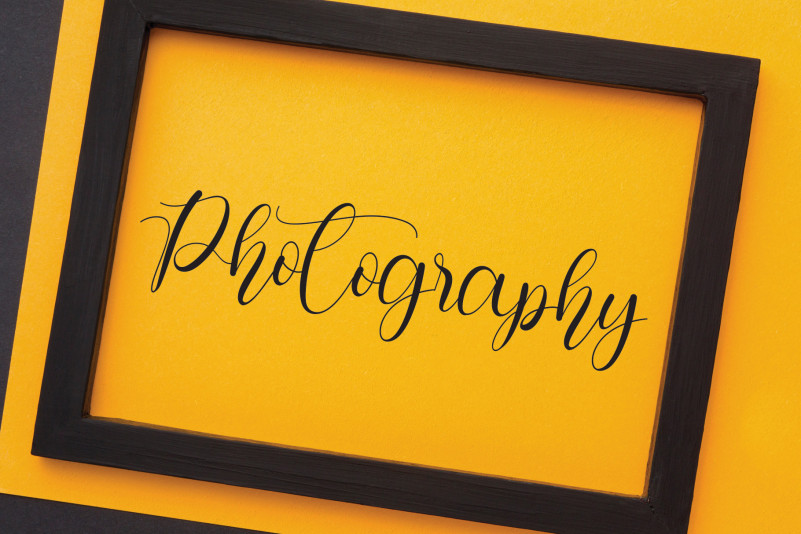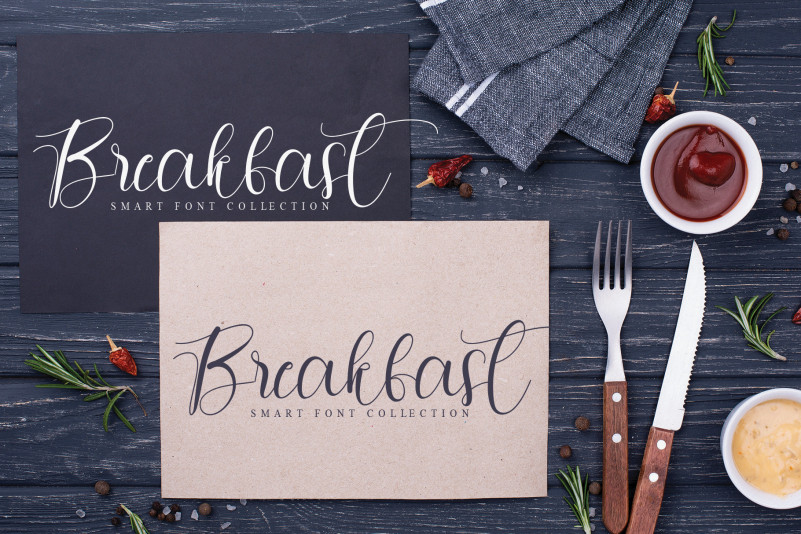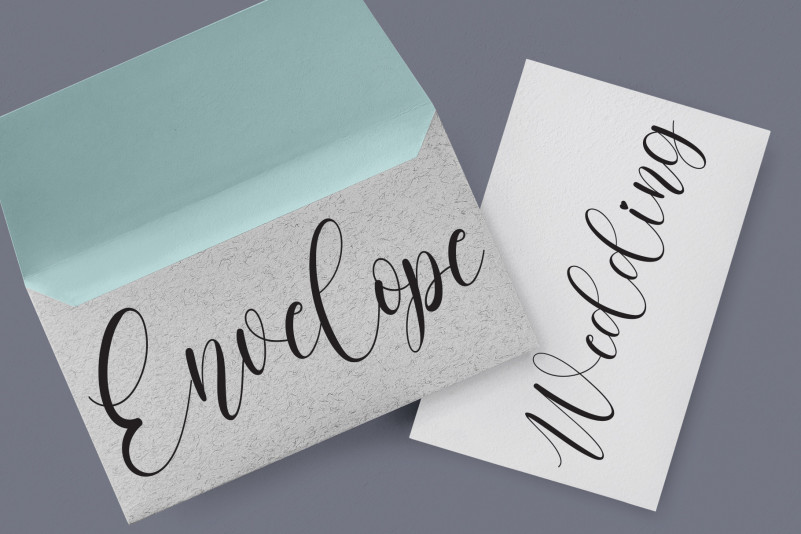
Myhusban Script Font
This is a lovely handwritten font that seems naturally attractive and cursive. With nicely shaped letters and a sleek style, this typeface is sure to make your creations seem even more beautiful!
the latest style letters are perfect for wall displays, wedding invitations, social media post logos, advertisements, product packaging, product designs, labels, photography, watermarks, invitations, stationery, and any project that requires taste handwriting.